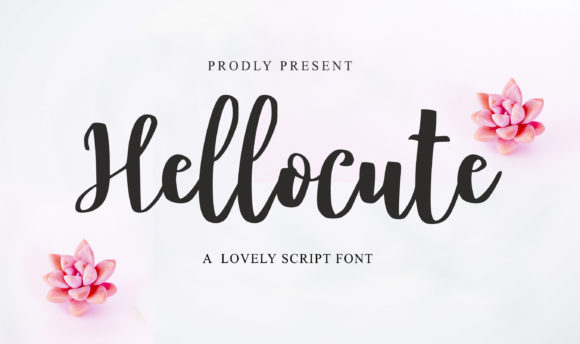
Step into the enchanting world of Hellocute, a script font that will transform your creative visions into breathtaking masterpieces. Crafted with meticulous care by the renowned Nurstudio, this font exudes an aura of elegance like no other.
Embark on a journey of creative expression with Hellocute, the perfect choice for beauty clinics seeking to elevate their brand aesthetics. Its graceful curves and alluring charm will cast a spell on your audience, captivating their senses with every stroke.
Whether you're a social media enthusiast adorning your Instagram posts with captivating captions or an artist seeking inspiration for your DIY masterpieces, Hellocute will ignite your imagination and bring your creations to life.
But beware, for Hellocute's allure is not limited to the digital realm. Its versatility extends to the physical world, where it can adorn your handcrafted gifts, invitations, and home décor with an ethereal touch.
With Hellocute at your fingertips, the possibilities are endless. Transform your ordinary designs into extraordinary works of art that will leave a lasting impression. Embrace the magic of Hellocute and watch your creativity soar to new heights.